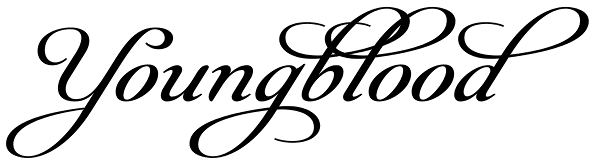
Youngblood
Youngblood is a non-connected formal script with tall, sweeping ascenders and two alternates. These alternate forms can be mixed and matched for a custom look, and Youngblood is stronger in weight and is better suited for display work than most...
Youngblood
Youngblood Alternate One
Youngblood Alternate Two